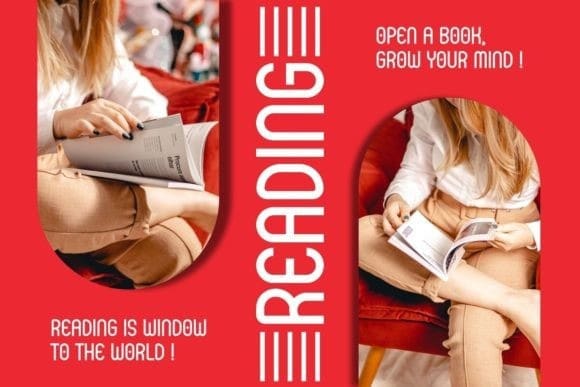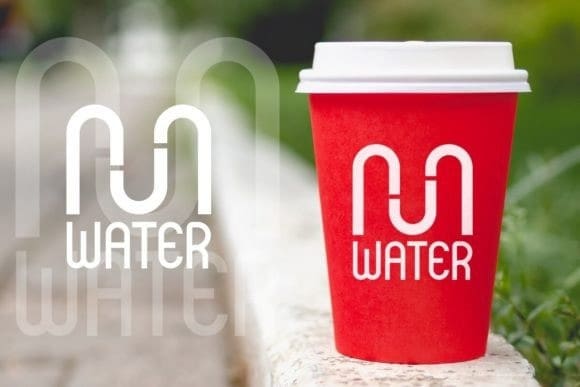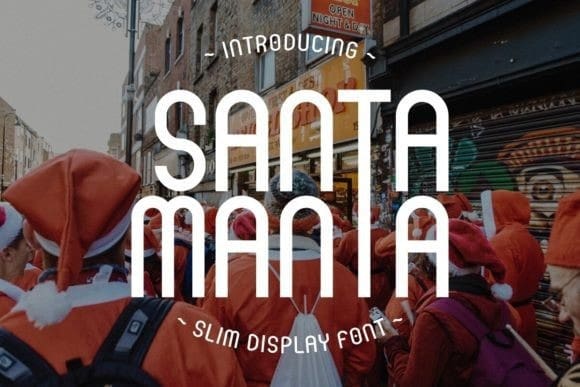
Santa Manta Font
Santa Manta Font, the quintessential slim display font that captures the essence of Santa Claus and the magic of Christmas. This elegant typeface is tailor-made to add a touch of Santa’s charm to your holiday designs. This font is perfect for Holiday Greetings, Invitations, Gift Wrapping, Logo Design, Decoration, Digital Art, Crafting, and others.